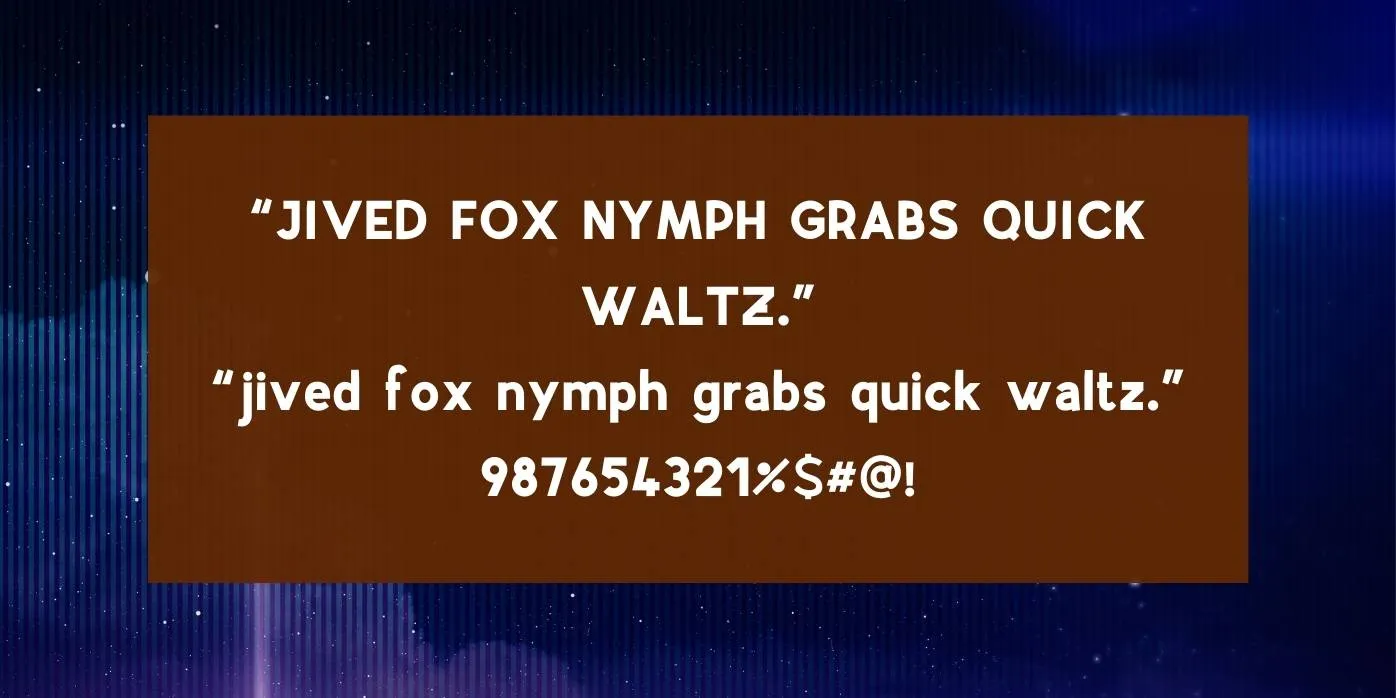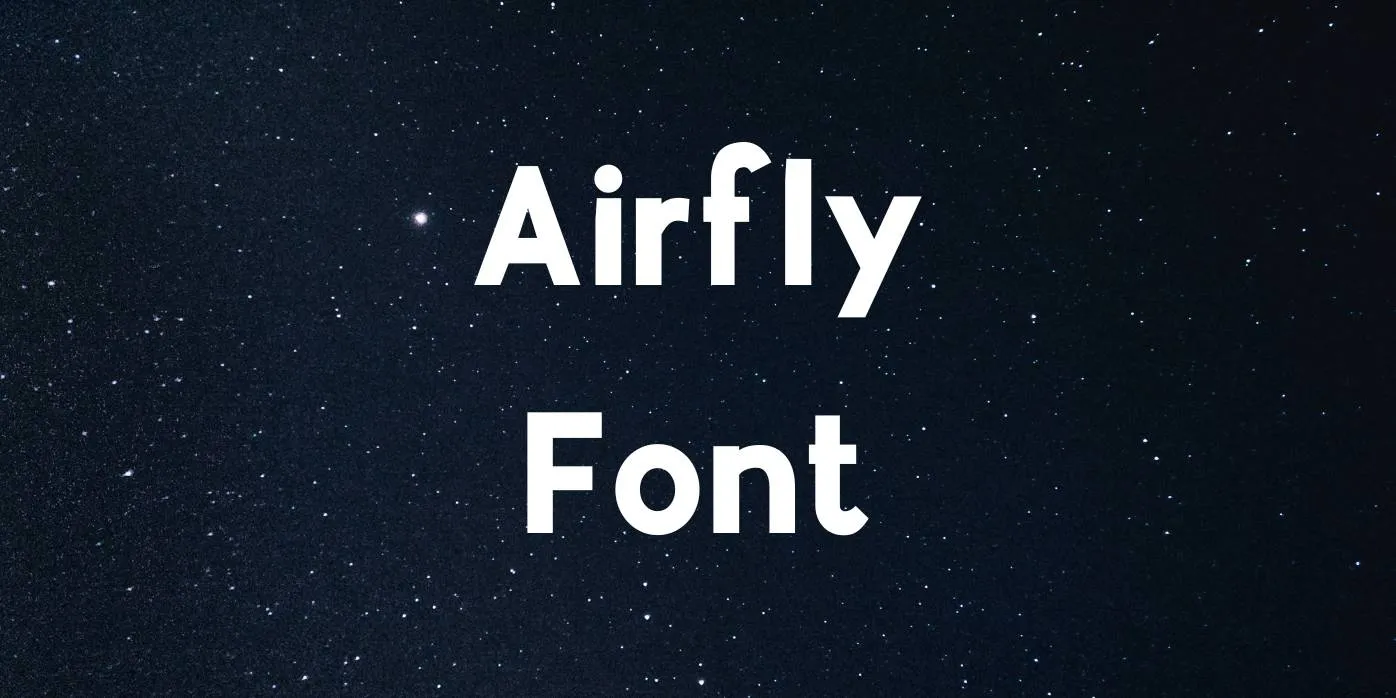
Airfly Font
Airfly Font is a sans-serif font designed by Phitradesign. This font is free only for personal and non-profitable projects and designs. The characters of this texture are also stunning because they have a fantastic look with highly readable and eye-catching text. This font has a very attractive look that brings your project’s exceptional look.
In this way, you can use this texture in many valuable projects like web designing, branding, etc. The font that is capable of pairing with this texture is the caros font. Both have a good ability to grab the attention of the client. The transfer of this texture from one platform to the other is very simple and easy.